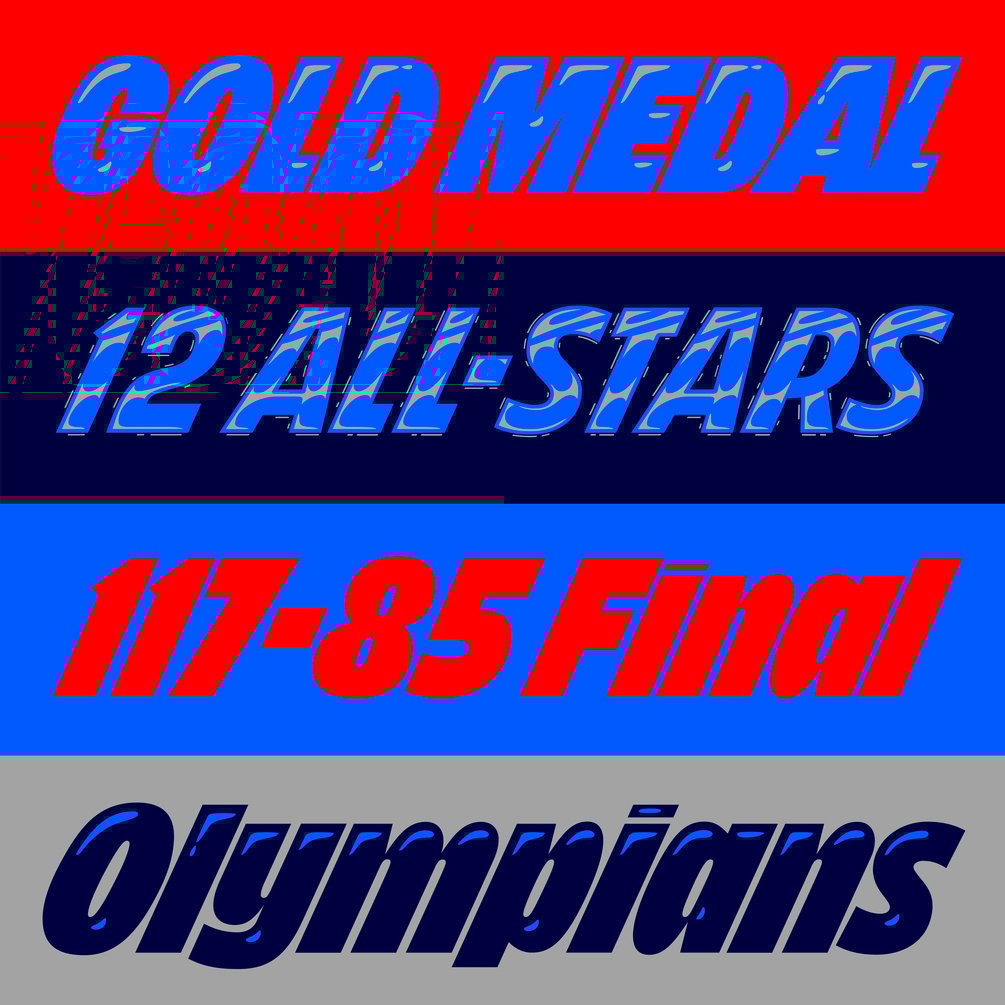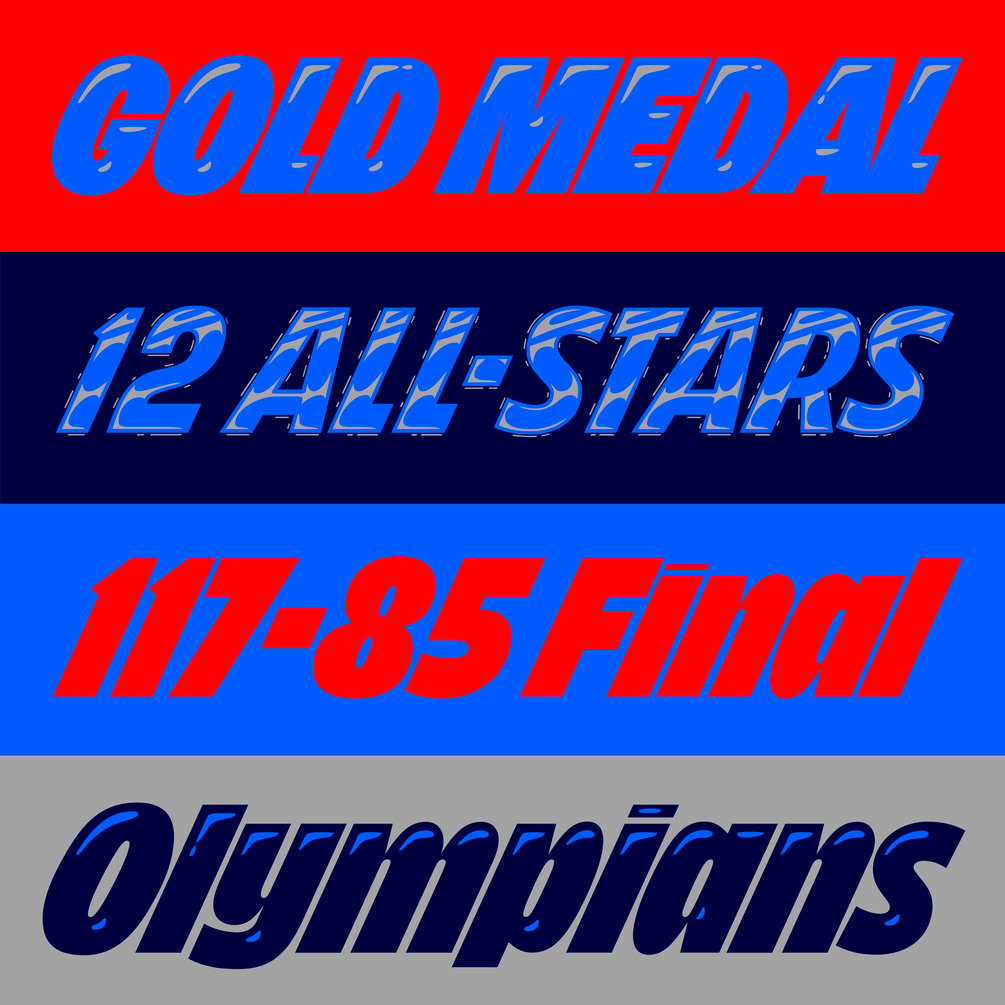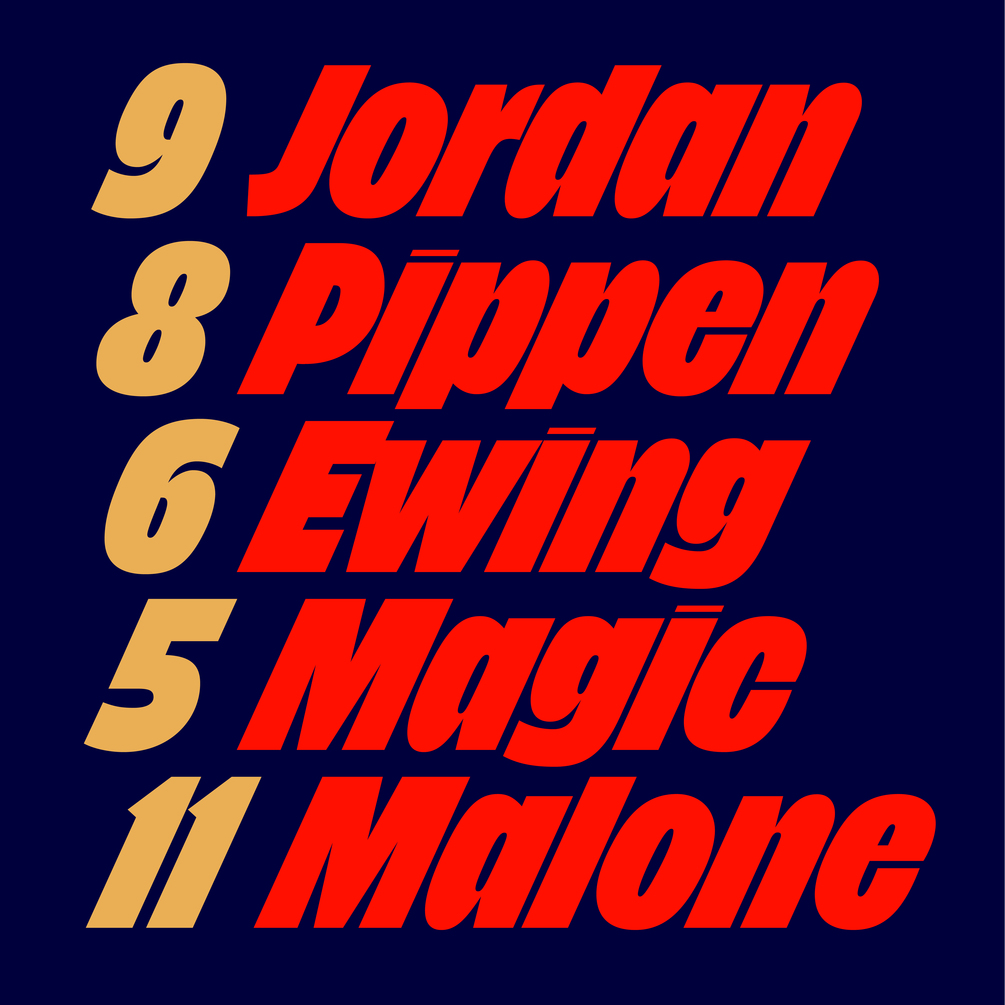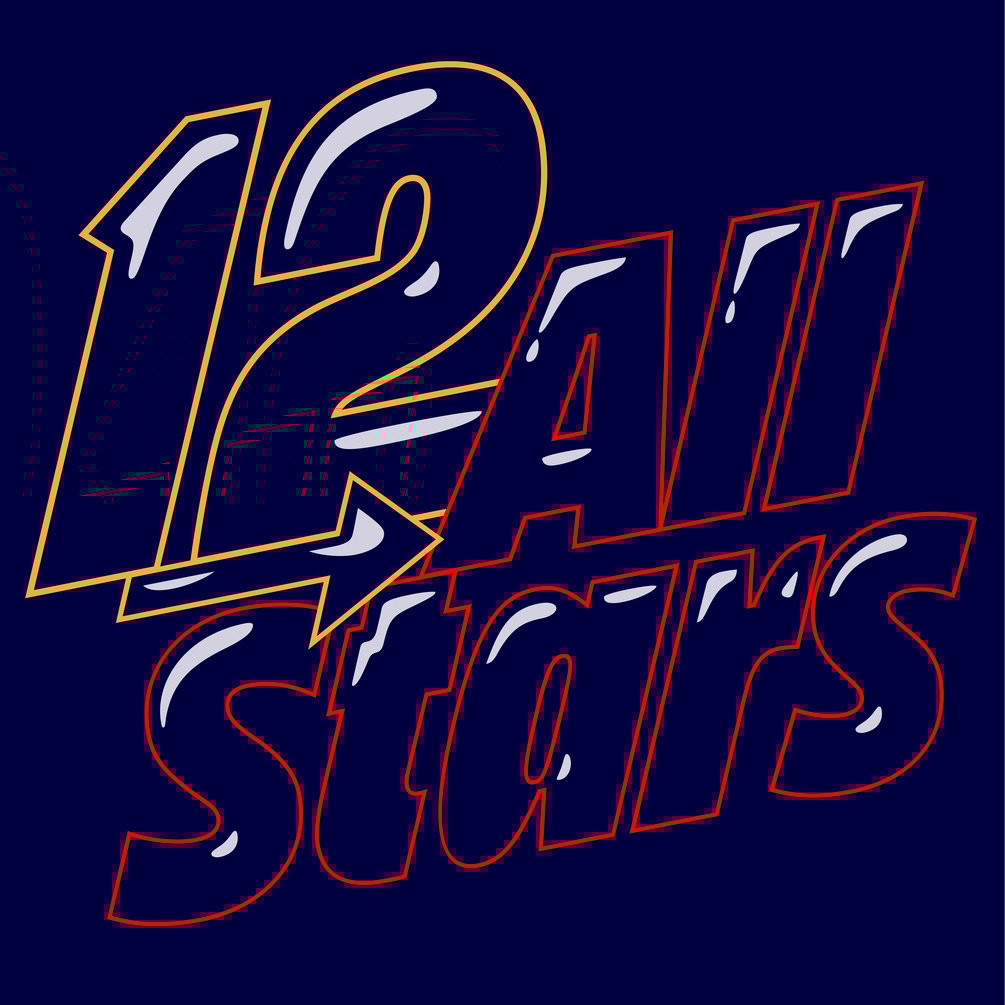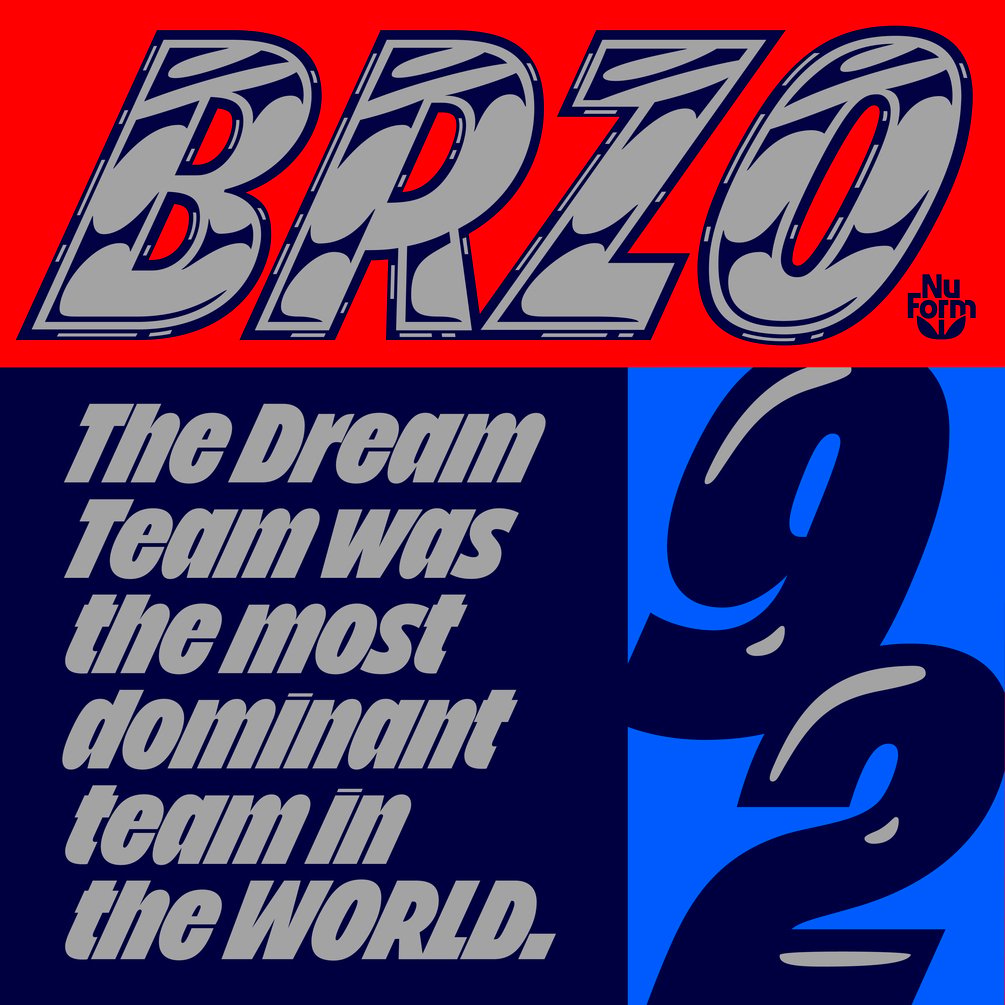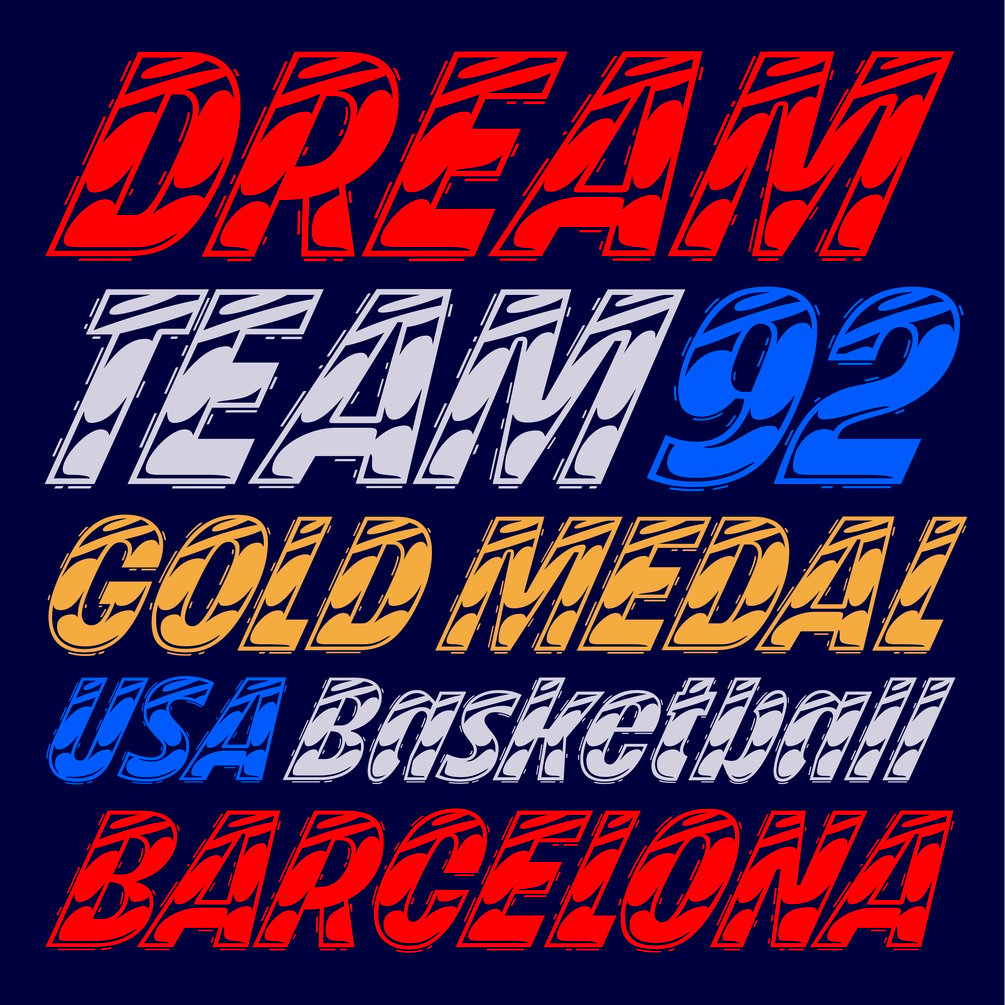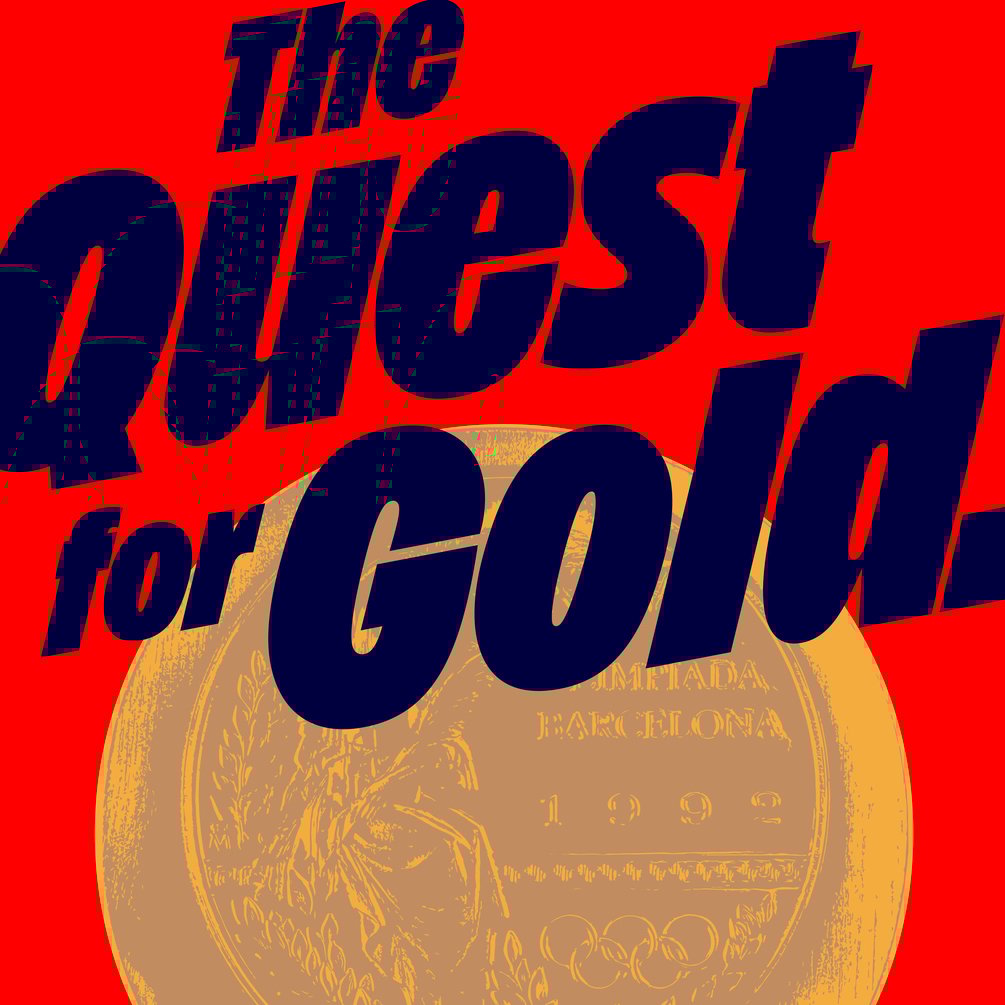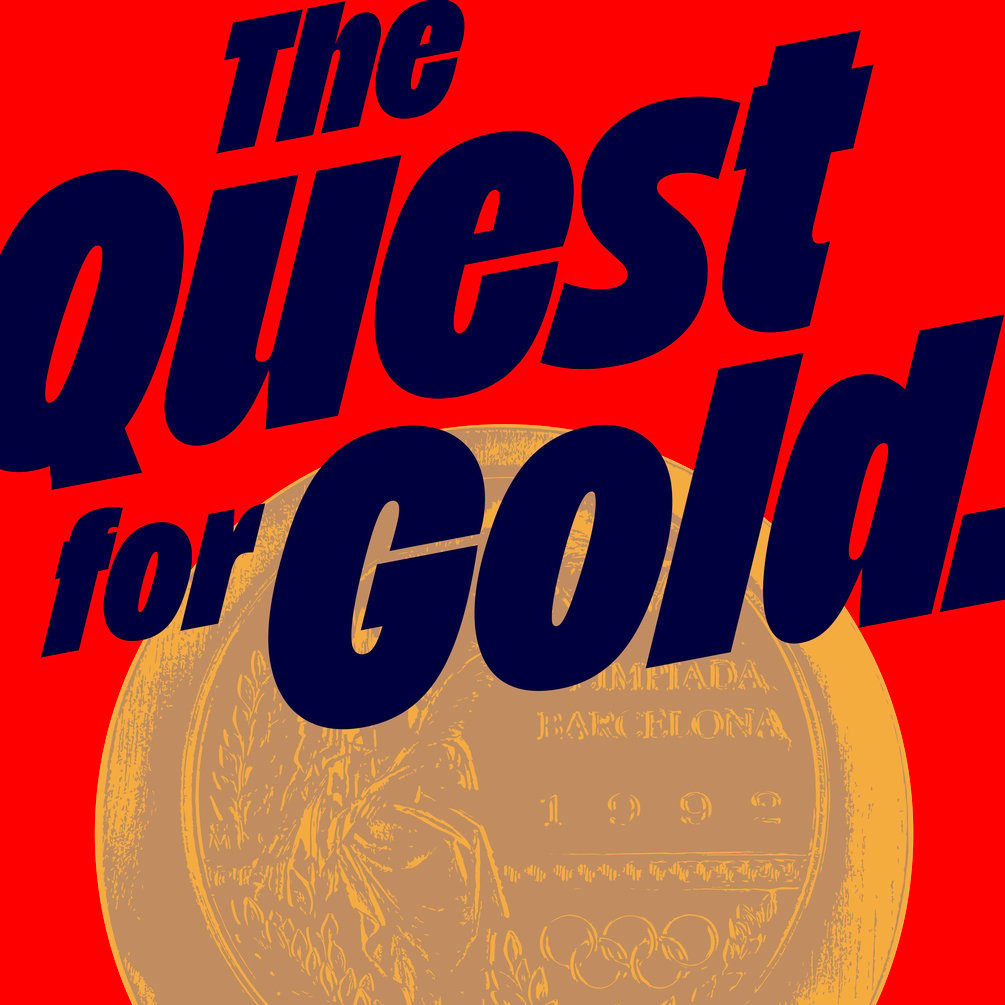
BRZO
BRZO, a 5 style display typeface inspired by the boldness of 90's basketball graphics. Growing up my room teemed with Dream Team posters, Fleer trading cards and Eastbay catalogs. Fast forward 20 years this influential era manifested into a full bodied italic sans serif wanting a jersey to be sewn on. BRZO’s intentionally tight letter spacing gives a headline an additional punch. Stack it, set it diagonally or use a drop shadow…no matter the occasion BRZO’s ready to play.
5 Styles
Extended Latin